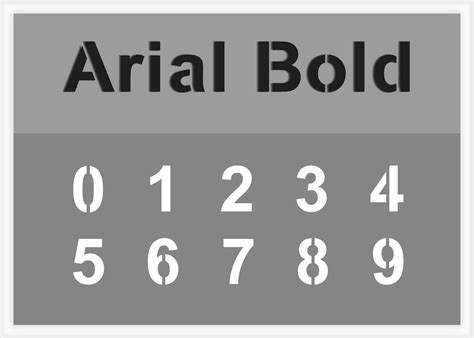
Arial Font Numbers. Arial unicode ms was originally commissioned by microsoft office as an extended version of the arial.
Arial unicode ms was originally commissioned by microsoft office as an extended version of the arial.
Arial unicode ms was originally commissioned by microsoft office as an extended version of the arial. Arial unicode ms was originally commissioned by microsoft office as an extended version of the arial.